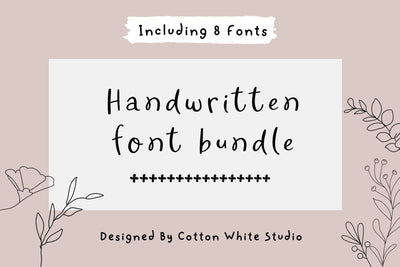
Handwritten Fonts Bundle
This collection includes 8 beautifully crafted handwritten fonts that will bring a personal touch to any project. Whether you're taking notes for class, creating a presentation, or making daily notes, these fonts will make your words stand out.
Uppercase Letters
Lowercase Letters
Numbers & Punctuation
Multilingual Support